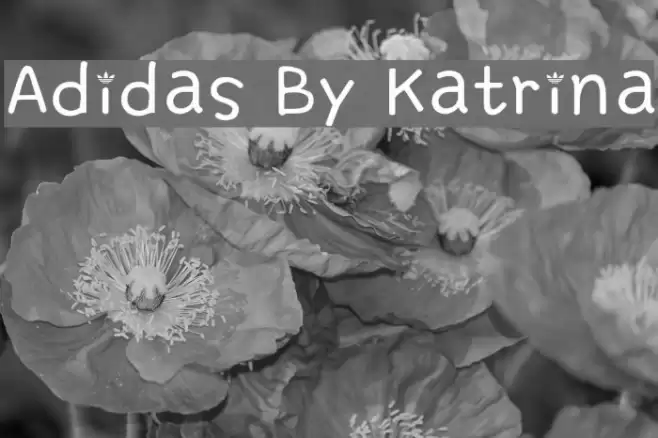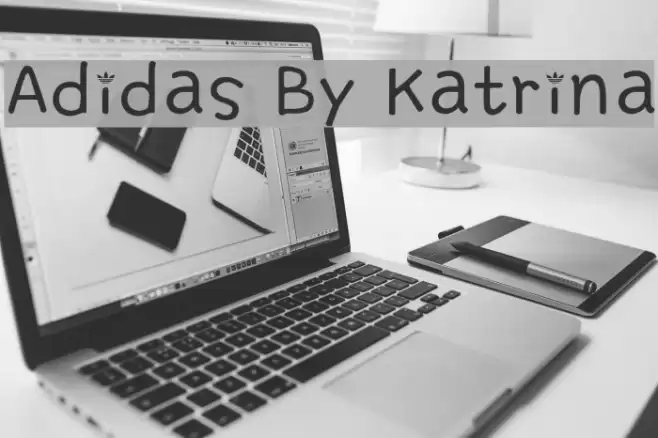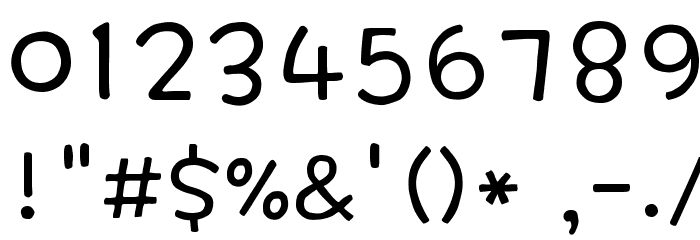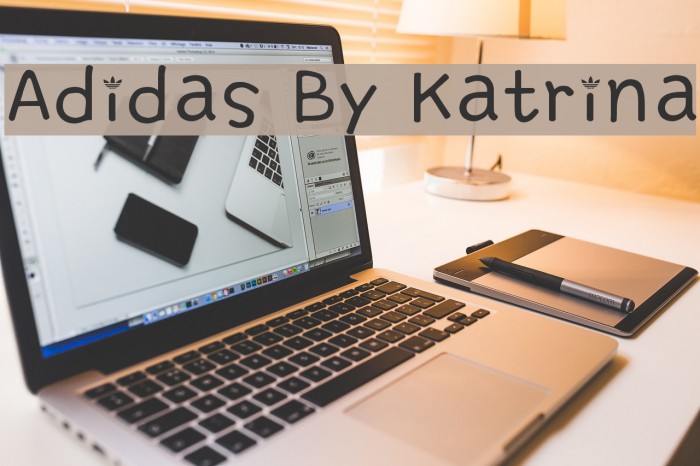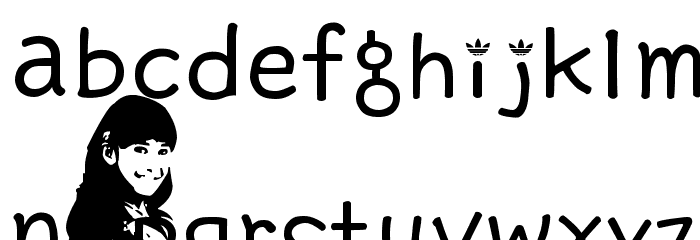
Adidas By Katrina Font
Adidas By Katrina Description
This font features a playful and modern design with a unique twist. The characters are rounded and smooth, offering a friendly and approachable appearance. The lowercase letters 'g' and 'j' incorporate distinctive elements, adding a creative flair. The font maintains a consistent stroke width, providing a clean and uniform look. It includes a full set of uppercase and lowercase letters, numbers, and a variety of special characters. The overall style is contemporary, making it suitable for a range of design projects that require a touch of personality and modernity.
A playful, modern font with rounded characters and unique design elements from Uncategorized fonts.